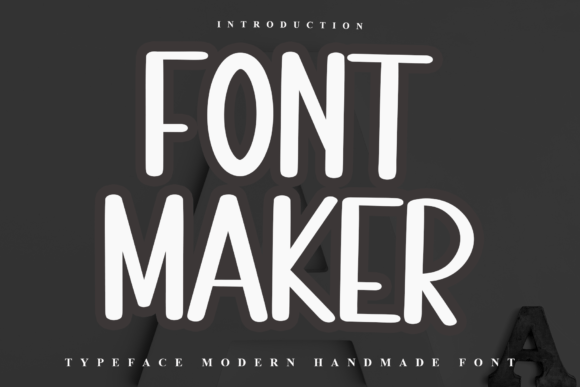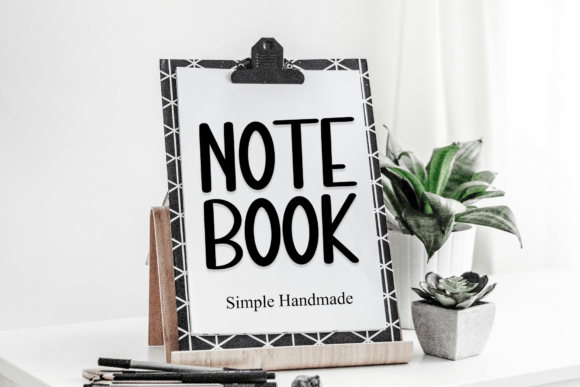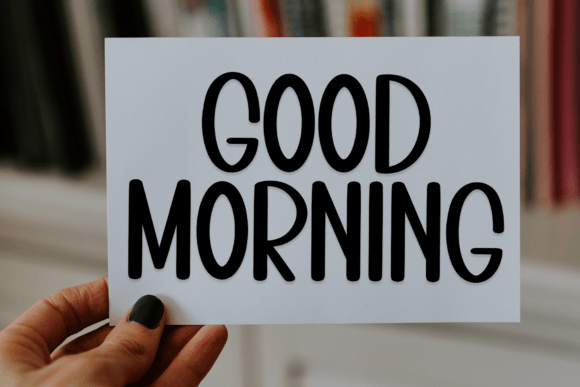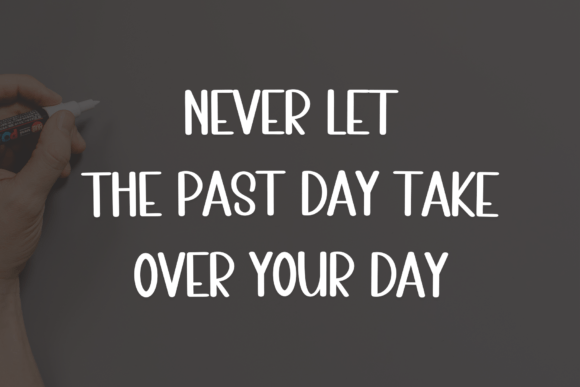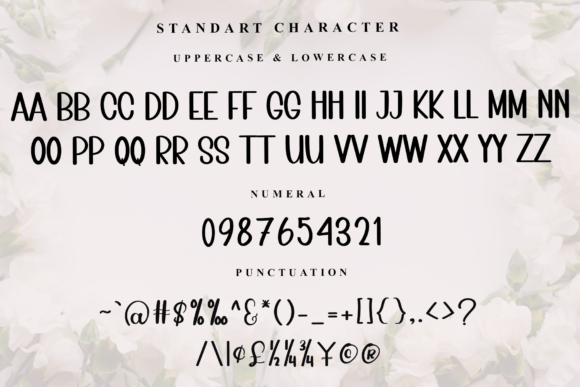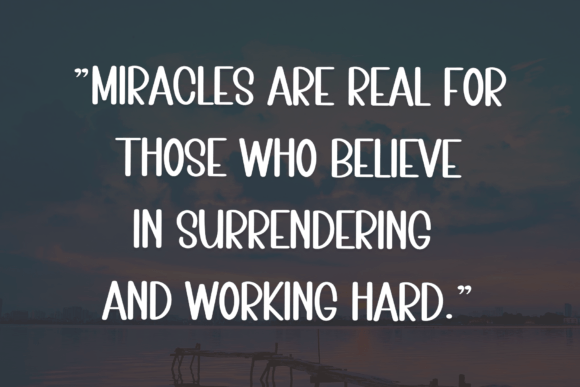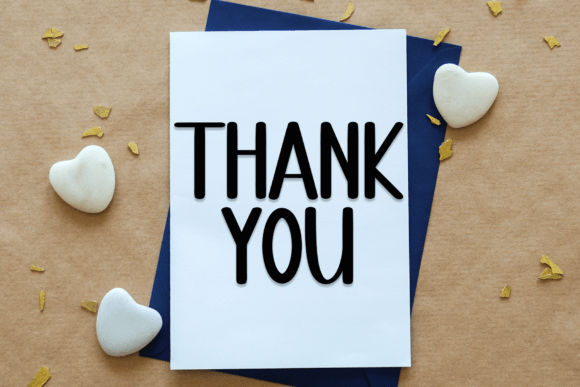
Deck the Halls with Typography: Introducing Font Maker Font
As the snowflakes start to fall and the twinkling lights adorn the streets, the holiday season is upon us. It’s the time of year when creativity knows no bounds, and the possibilities for festive designs are endless. Have you ever found yourself sitting by the fireplace, surrounded by ornaments and garlands, and suddenly inspired to create the perfect holiday greeting card or gift tag? That’s exactly where I was when I stumbled upon Font Maker Font, a merry and enchanting typeface that brings the magic of Christmas to life.
Font Maker Font is a delightful and whimsical font, perfect for designers who want to add a touch of nostalgia and cheer to their holiday projects. With its decorative elements and PUA encoding, accessing all the amazing glyphs and ligatures is a breeze. Whether you’re a seasoned pro or a design enthusiast, Font Maker Font is a valuable addition to your typography toolkit, guaranteed to make your designs shine with the spirit of the season.
- Unique Character Set: Font Maker Font features a unique character set that includes over 1,000 glyphs, including international characters, symbols, and ligatures.
Font Maker Font Review
- Font Maker Font supports a wide range of languages, making it a great option for multilingual projects.
- The output is consistently high-quality, with clear and crisp text.
Use the Font Maker Font for creative and unique designs.
Combine the Font Maker Font with other fonts for a cohesive and professional look.
Use the Font Maker Font for:
Logos and branding
Business cards and resumes
Marketing materials and social media posts
Wedding invitations and event materials